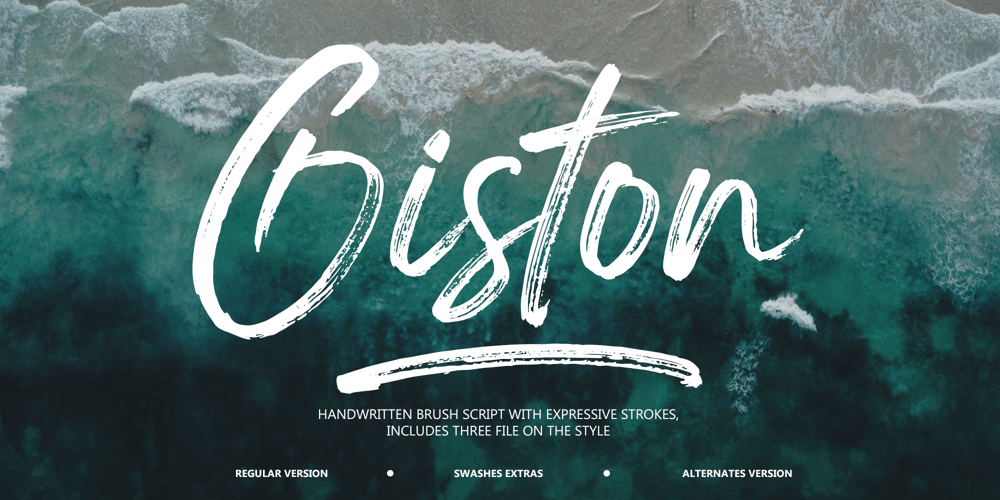
Giston
Giston font
Giston Font Family was designed by Muhammad Fajar and published by Lucky Type. Giston contains 3 styles and family package options. Giston is the newest handwritten font that comes with thicker or stable lines, making it easier to read. There are no scratches that are too fine or thin, so it looks more sturdy and full of energy. Giston is very suitable for use in title designs such as clothing, invitations, book titles, stationery designs, quotes, branding, logos, greeting cards, T-shirts, packaging designs, posters, and others.Giston has two different letter characters, namely Giston Regular and Giston Alternates, each of which has a uniform spacing and consistent shape. Giston has several swashes that will make your design stand out more.